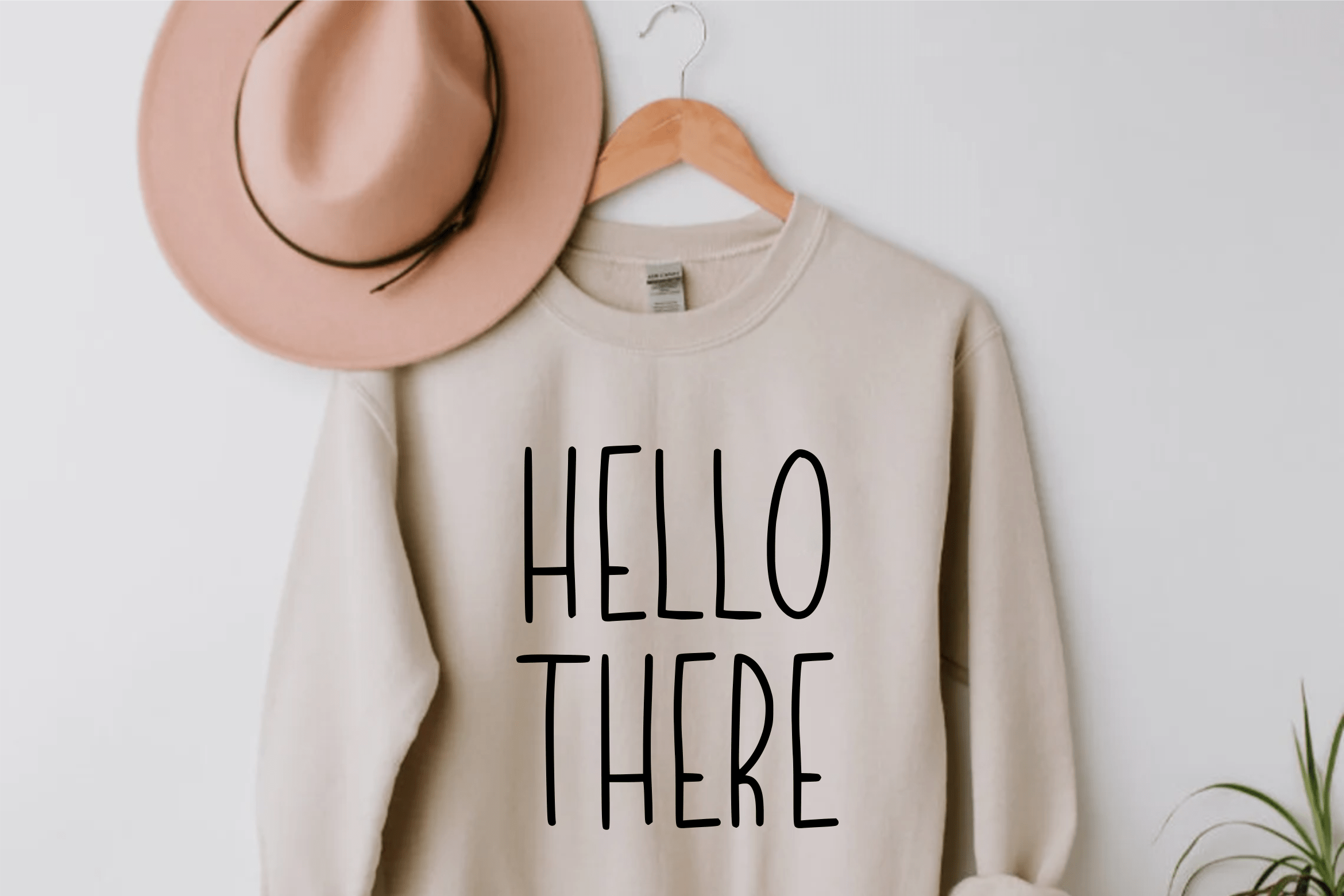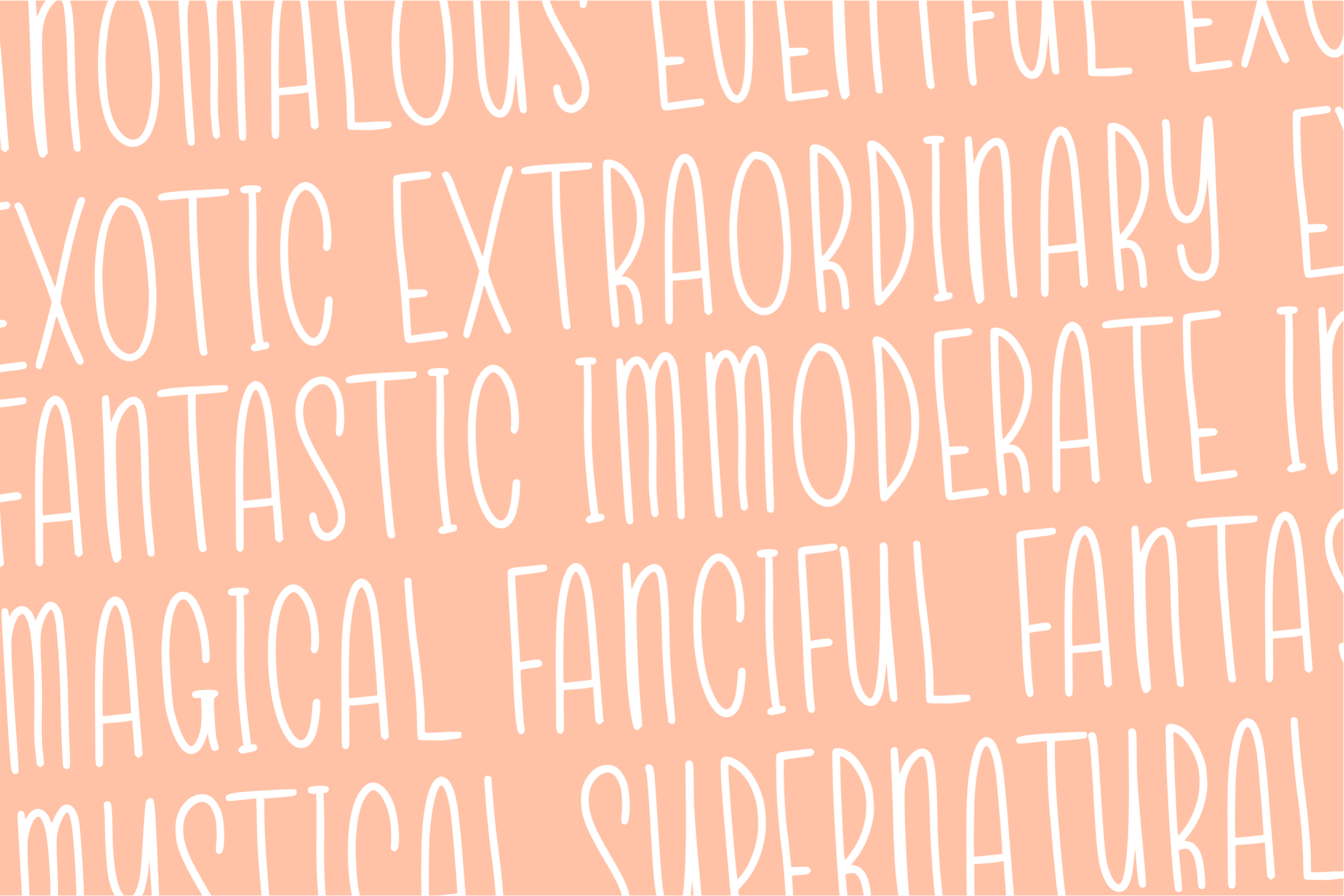
Secret Caramel Display Font
This is a Tall Handwritten Font. Secret Caramel is perfect for product packaging, branding project, megazine, social media, wedding, or just used to express words above the background.